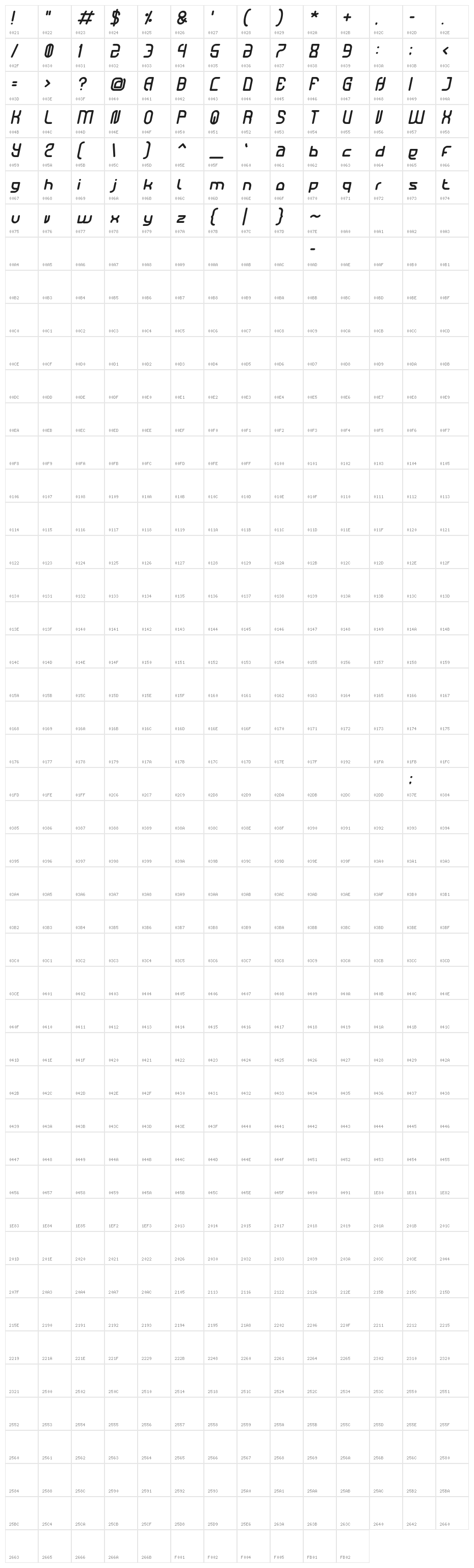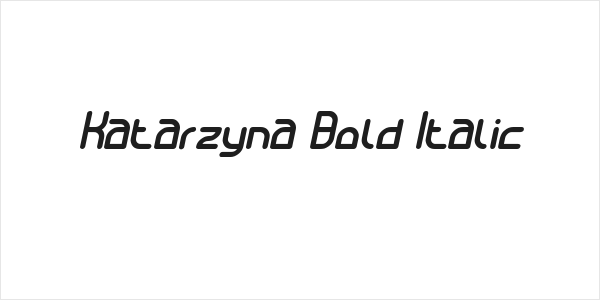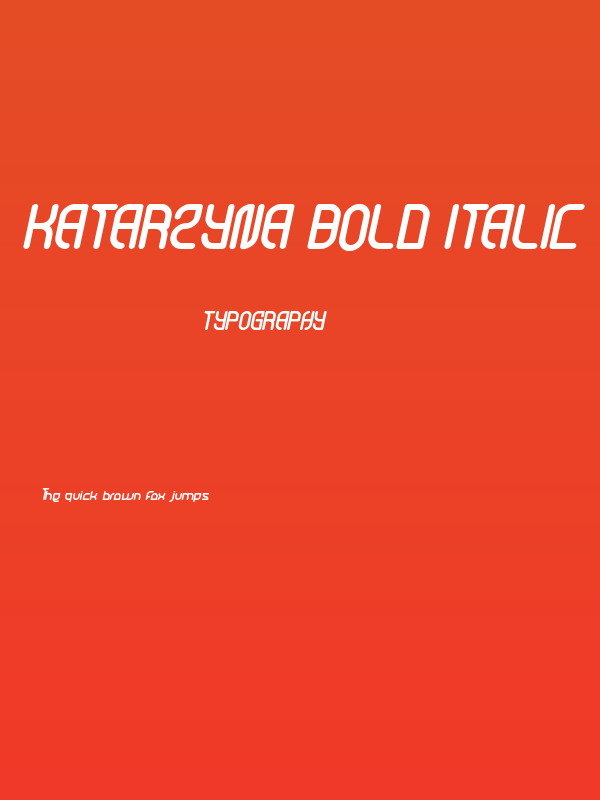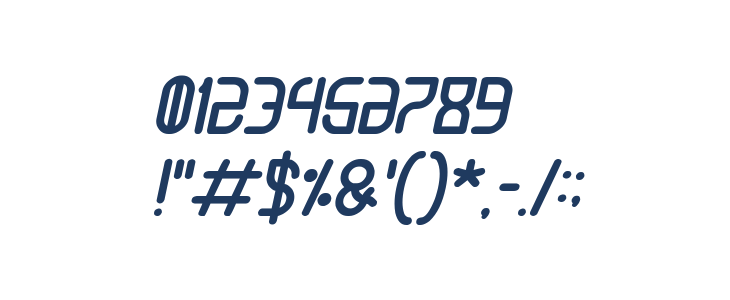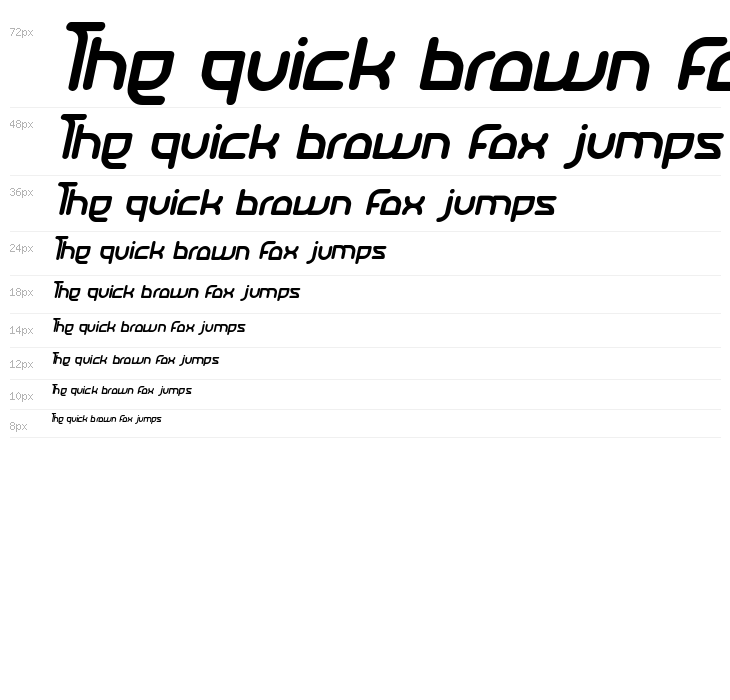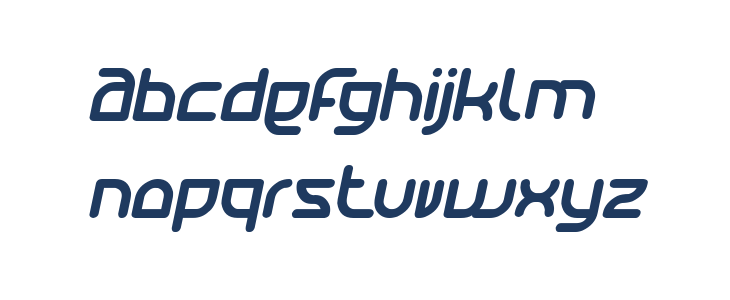
Katarzyna Bold Italic Font
Katarzyna Bold Italic Description
This font features a bold and italic style with a modern, futuristic appearance. The characters are rounded and connected, giving a smooth and continuous flow. The uppercase and lowercase letters maintain a consistent style, with the uppercase being slightly more angular. The numerals are distinct and easily readable, matching the overall aesthetic. Special characters are well-integrated, maintaining the font's cohesive look. The design is sleek and dynamic, suitable for projects that require a contemporary and energetic feel.
| Proposed Projects | Ideal for branding, sports team logos, tech-related projects, and modern advertising. |